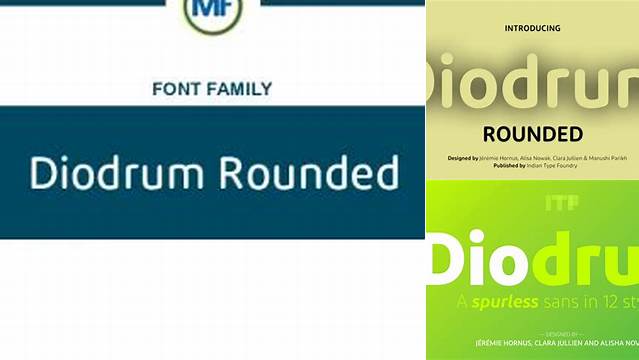
1. What is Diodrum Rounded Font?
Alright, first things first: what exactly is the Diodrum Rounded Font? Simply put, it's a modern, rounded sans-serif font known for its clean lines and friendly appearance. The rounded terminals give it a softer, more approachable feel compared to fonts with sharp edges. This makes it an excellent choice for everything from website headings and body text to logos, posters, and social media graphics. One of the key advantages of Diodrum Rounded is its versatility. It can be used in both professional and casual contexts, making it a great all-rounder. Think about it: you could use it for a tech company's website that wants a modern yet welcoming look, or for a fun, creative brand aiming for a playful vibe. The font's readability is also a major plus. The rounded shapes and clear letterforms ensure that text remains easily digestible, even at smaller sizes. This is crucial for user experience, especially when dealing with website content or lengthy blocks of text. The design of Diodrum Rounded also allows for excellent kerning and spacing, which is the process of adjusting the space between characters to achieve a visually pleasing result. Well-kerned fonts are a delight to read and contribute significantly to overall design aesthetics. Moreover, Diodrum Rounded is often available in a variety of weights (like regular, bold, and italic), giving you even more creative control. This range allows you to create visual hierarchy and emphasize certain words or phrases, adding depth and interest to your designs. Now, if you are looking for Diodrum Rounded Font Free Download, keep reading, because the information below will help you.
2. Diodrum Rounded Font Features and Characteristics
So, why choose Diodrum Rounded over other fonts? Let's break down its key features and characteristics to give you a better idea. Firstly, its rounded design is undoubtedly its defining trait. As mentioned earlier, those smooth, curved terminals give the font a welcoming and contemporary look. It's the antithesis of the harsh, industrial feel that some sans-serif fonts can have. This makes it ideal for brands and projects that aim to project friendliness, approachability, and a sense of modernity. The simplicity of the font is another major advantage. It avoids unnecessary flourishes or intricate details, which makes it incredibly clean and easy to read. This is crucial for any design that prioritizes clarity, especially where the audience is likely to be quickly scanning content. The font's legibility is further enhanced by its clear letterforms. Each character is distinct and easily recognizable, minimizing any potential for confusion or misinterpretation. This is particularly important for body text where prolonged reading is required. Diodrum Rounded often includes a comprehensive character set. This means it supports a wide range of characters, including numbers, punctuation marks, and special symbols, allowing for versatility in different languages and designs. This feature is particularly crucial if you work on international projects or anticipate the need for extended character support. Moreover, the availability of different weights—such as regular, bold, italic, and sometimes even lighter or heavier versions—gives designers a great deal of flexibility. This allows you to create visual hierarchy, emphasizing certain words or phrases and adding depth and interest to your designs. You can also use different weights to create contrasting effects, such as pairing a bold heading with regular body text. Diodrum Rounded's modern aesthetic makes it suitable for a wide range of design applications. Its versatility ensures its relevance in a broad variety of creative projects, including branding and web design. This characteristic, combined with the other features, makes it a valuable asset for any designer's toolkit. Remember, the Diodrum Rounded Font Free Download is an excellent choice for a variety of projects.
7. Diodrum Rounded Font for Logo Design
If you're looking to create a logo that's modern, friendly, and memorable, the Diodrum Rounded Font can be an excellent choice. Its clean lines and rounded edges project a sense of approachability and modernity, which is perfect for various businesses and brands. One of the main advantages of using Diodrum Rounded for logos is its versatility. It works well in various applications, from print to digital media, and it remains easily legible at different sizes. This ensures your logo is recognizable and effective, regardless of where it's displayed. Consider how the font's characteristics align with your brand's personality and values. Does it feel like a good match? If your brand is friendly, modern, and approachable, Diodrum Rounded could be a great fit. If you are having a Diodrum Rounded Font Free Download, remember to use it for your logo.
8. Diodrum Rounded Font for Website Headings
Using the Diodrum Rounded Font for website headings is a great way to create a clean, modern, and user-friendly online experience. Its rounded design gives a friendly vibe, while its clean lines ensure readability. The font’s versatility makes it suitable for various industries and website styles, creating a sense of consistency and professionalism throughout your site. Think about how the font will fit into the overall design. Consider the colors, images, and other fonts you're using. Diodrum Rounded pairs well with other sans-serif fonts and can be used to create a balanced and visually appealing design. Make sure your headings are easily readable. Choose appropriate font sizes and styles. Experiment with different weights and sizes to create a visual hierarchy. The font's inherent legibility means it's suitable for various screen sizes and resolutions. Remember, a Diodrum Rounded Font Free Download can be a great asset to your website.
9. Diodrum Rounded Font for Body Text
Using Diodrum Rounded for body text might not always be the first choice, but it can be surprisingly effective if used correctly. Its clean, rounded design offers a modern and friendly feel. When used in body text, it's crucial to focus on readability. Make sure the font size and line spacing are appropriate for your audience. Avoid using it for very large blocks of text, as the rounded terminals might cause eye fatigue. Experiment with different font weights and styles to find what looks and feels best. The clarity and simplicity of Diodrum Rounded makes it easier for readers to focus on the content. However, always test the font on different devices and screens to ensure that it remains readable. This makes Diodrum Rounded a good font to try after getting a Diodrum Rounded Font Free Download.
30. Conclusion: Embrace the Versatility of Diodrum Rounded Font
So, there you have it! The Diodrum Rounded Font is a fantastic choice for any designer looking for a versatile and friendly typeface. Its clean lines, rounded edges, and excellent readability make it suitable for a wide range of projects, from logos and websites to social media graphics and print designs. By understanding its features, licensing terms, and best practices, you can effectively use the Diodrum Rounded Font Free Download to create visually appealing and engaging designs. Happy designing!